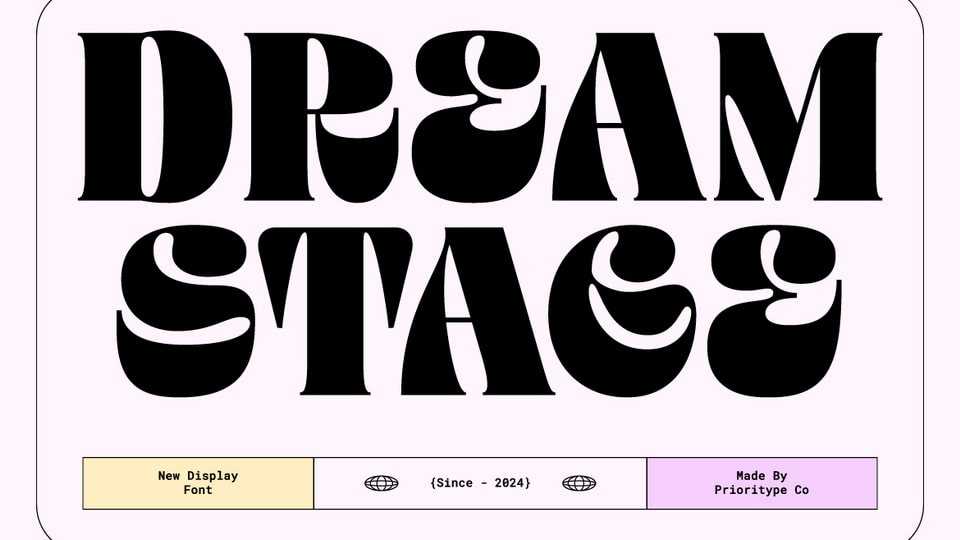
Download Dream Stage font, a bold display typeface that captivates with its striking and authentic characters. Dream Stage stands out, commanding attention and leaving a lasting impression.
Designer: Prioritype Co